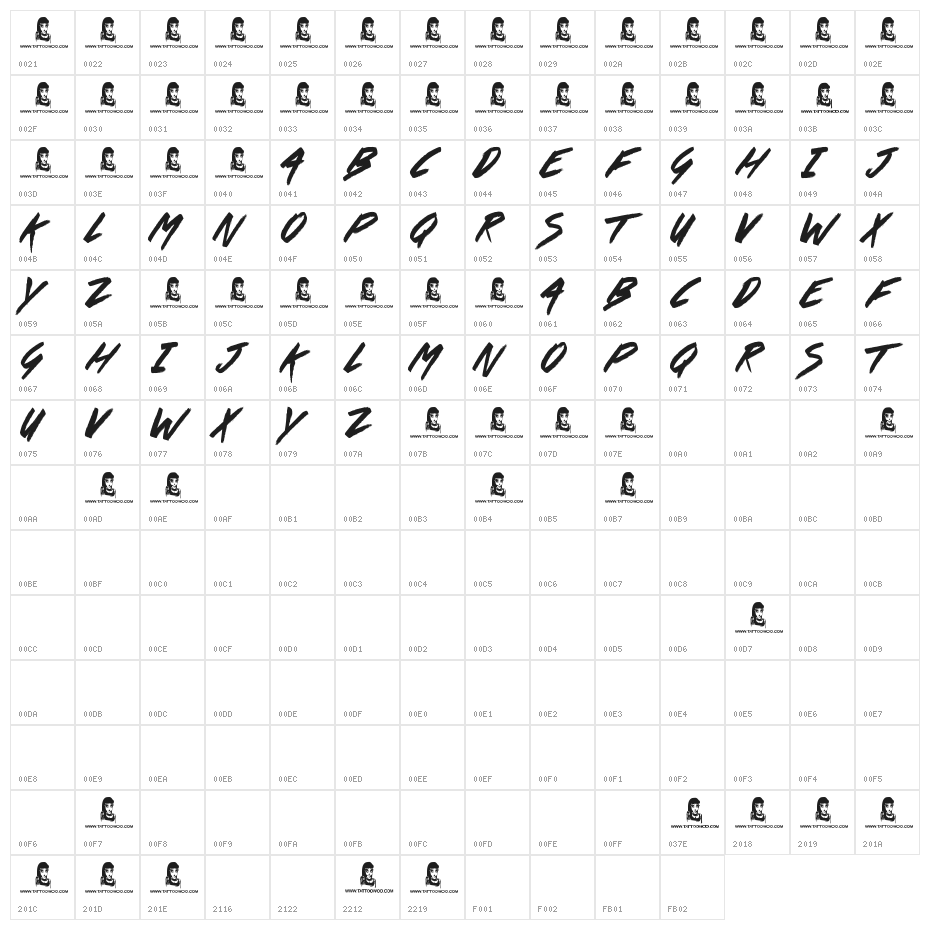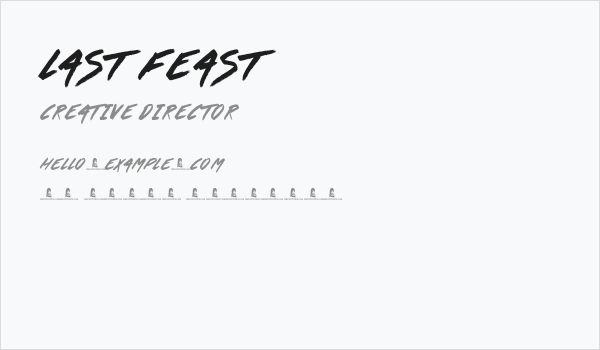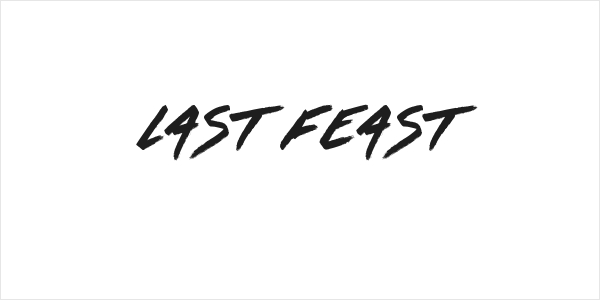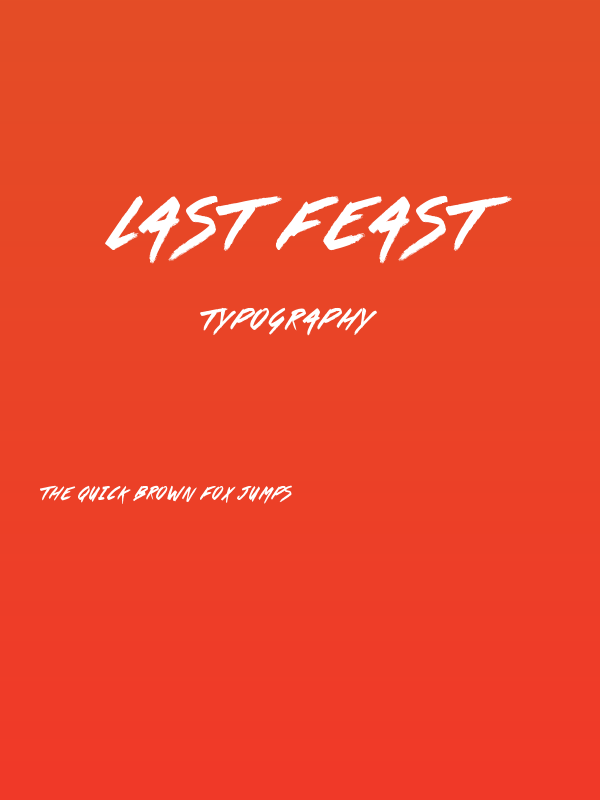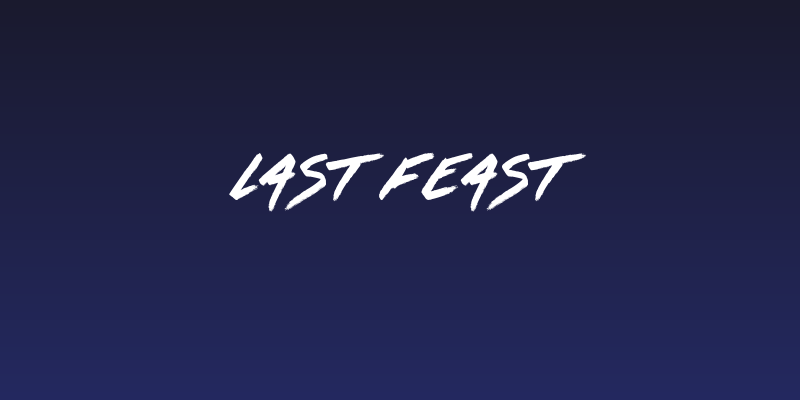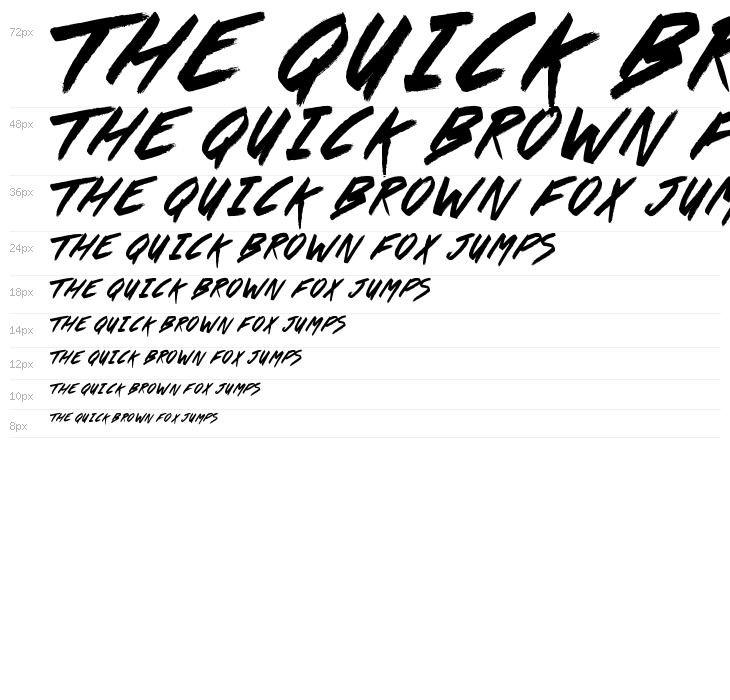
Last Feast Font
Last Feast Description
This font features a bold, brush-like style with a dynamic and energetic appearance. The strokes are thick and uneven, giving it a hand-painted look that adds a sense of movement and flair. The uppercase letters are particularly striking, with sharp angles and a slightly slanted orientation that enhances its dramatic effect. The font's rough edges and irregularities contribute to its raw and expressive character, making it suitable for projects that require a bold and artistic touch.
Proposed ProjectsIdeal for poster designs, album covers, branding for creative industries, and any project that needs a bold, artistic statement.